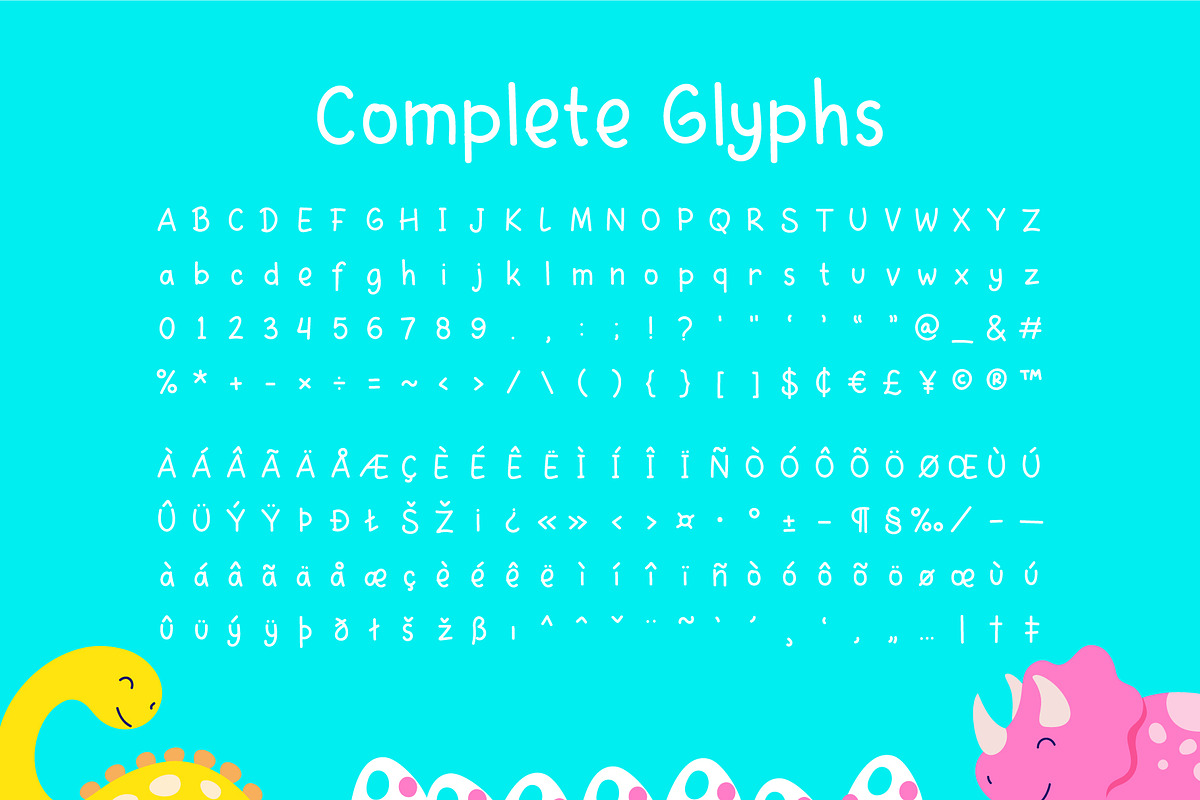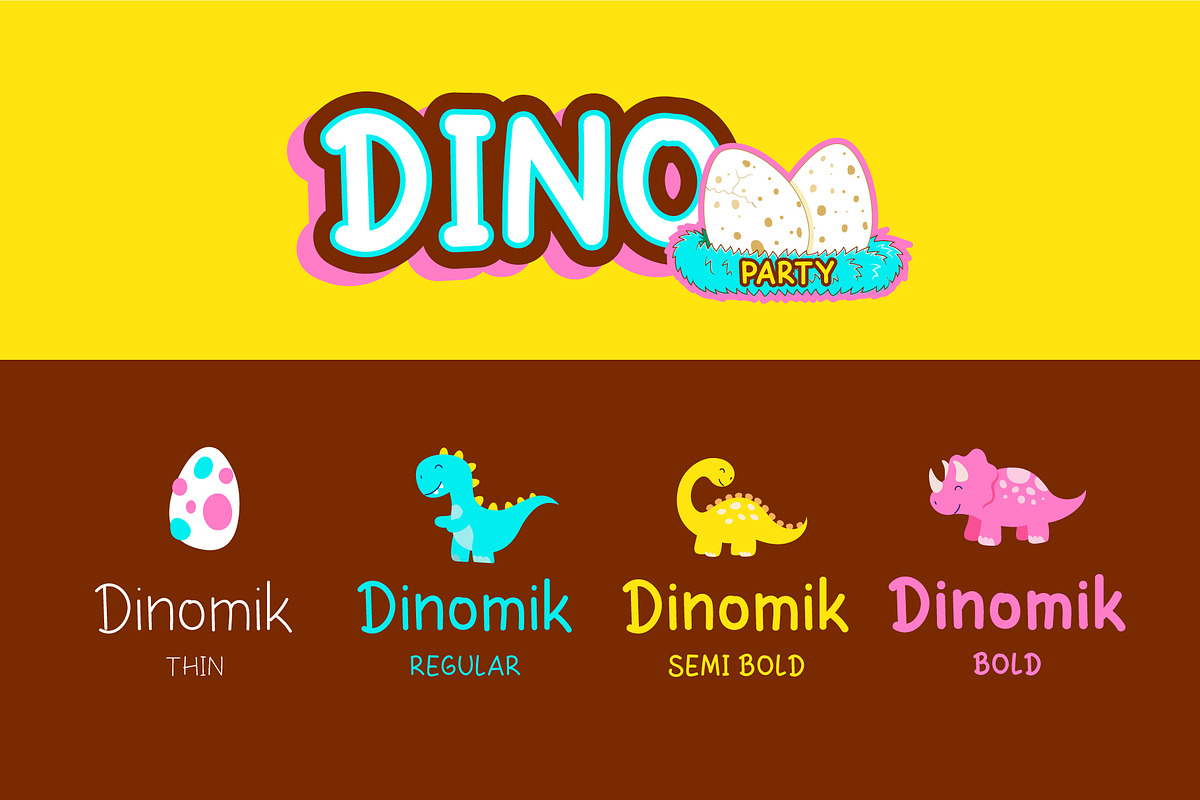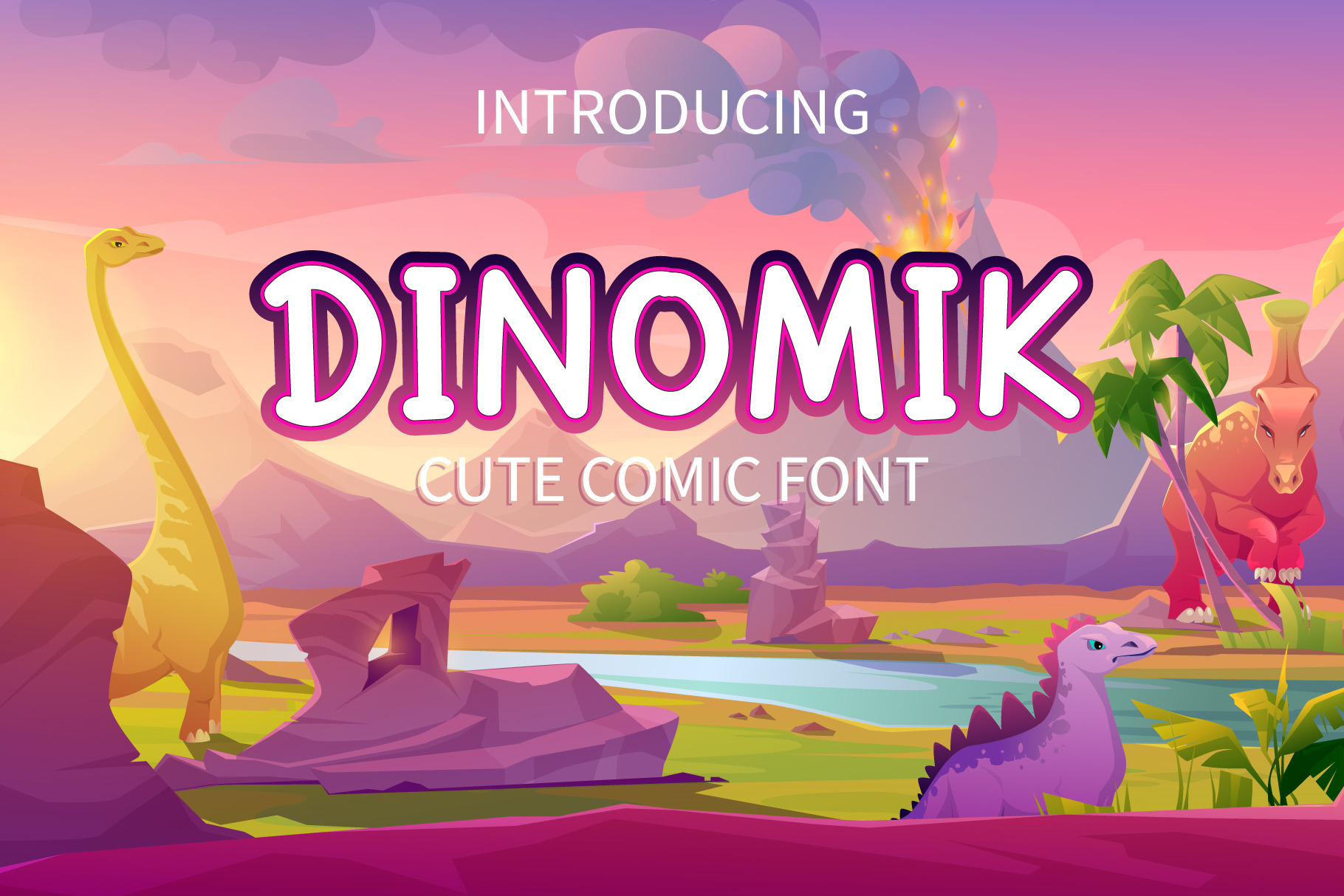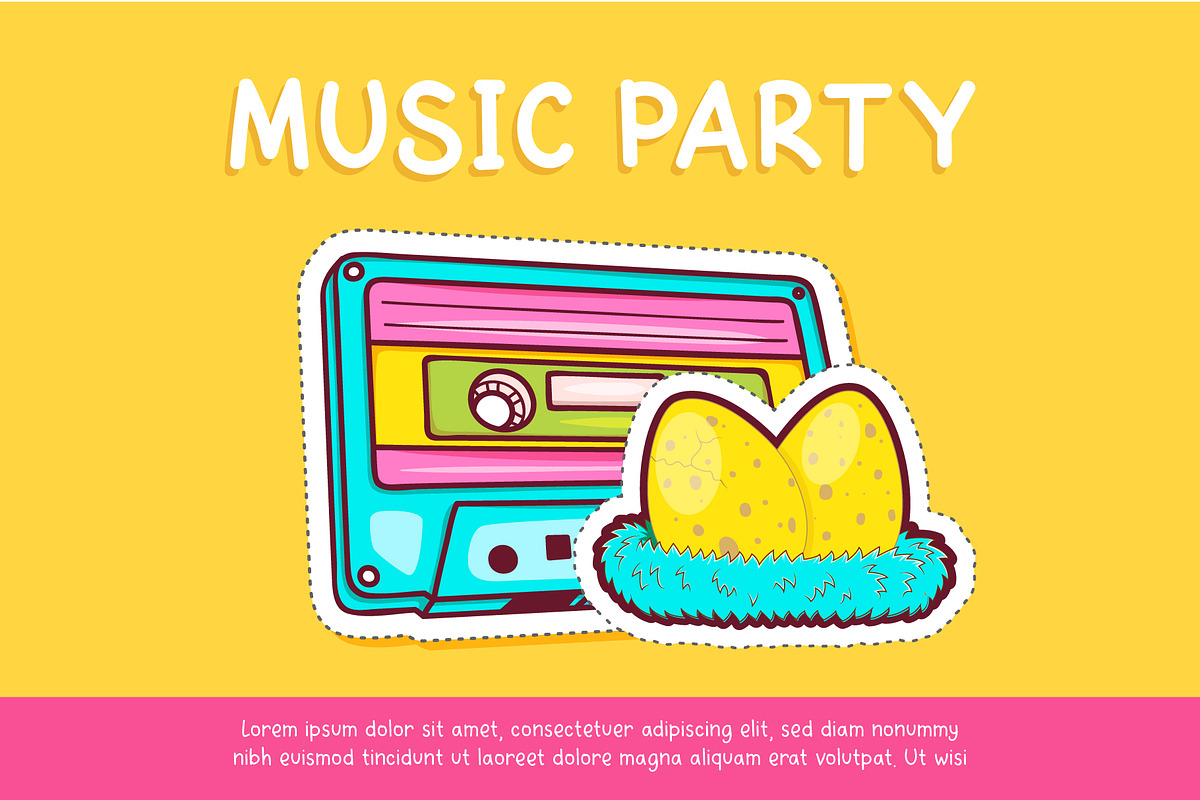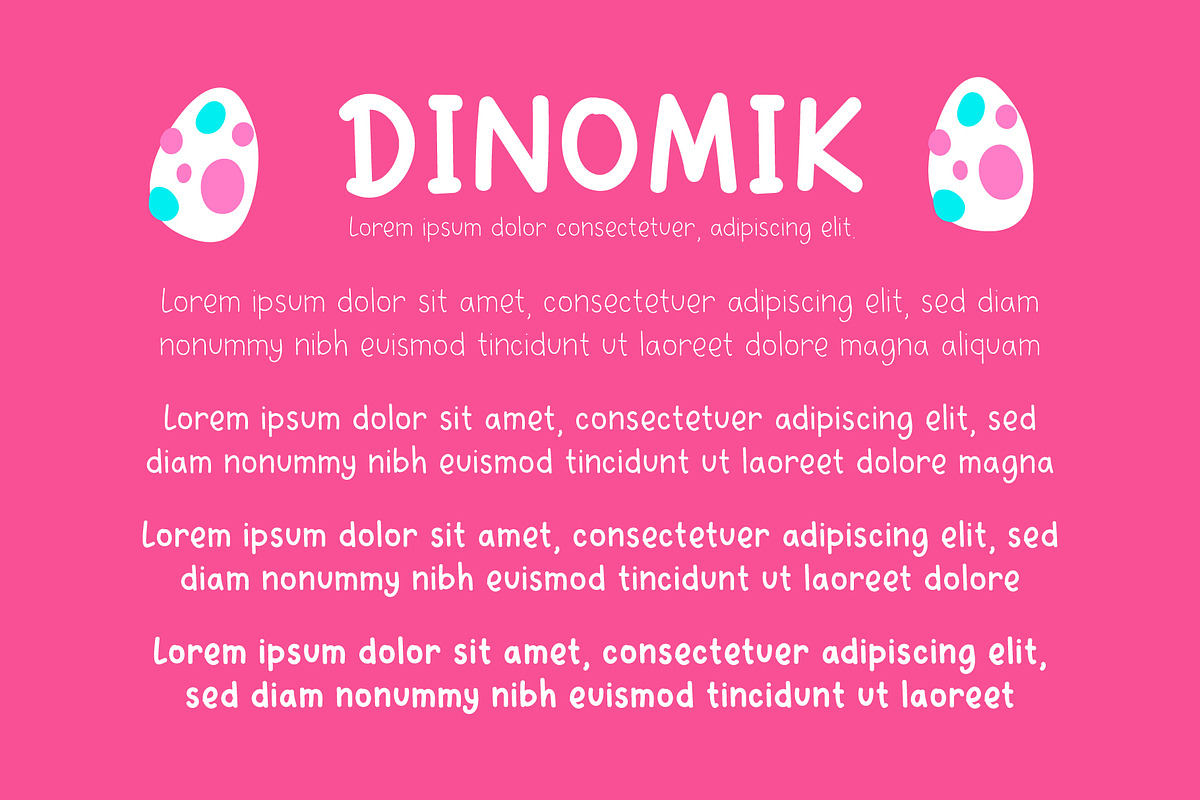
Dinomik fun comic font
Introducing Dinomik, a fun comic font that will make your day more cheerful. This font is perfect for you who find a cute hand drawn font. In this package, you also get three extra 3 funny dino characters. Enjoy Dinomik!